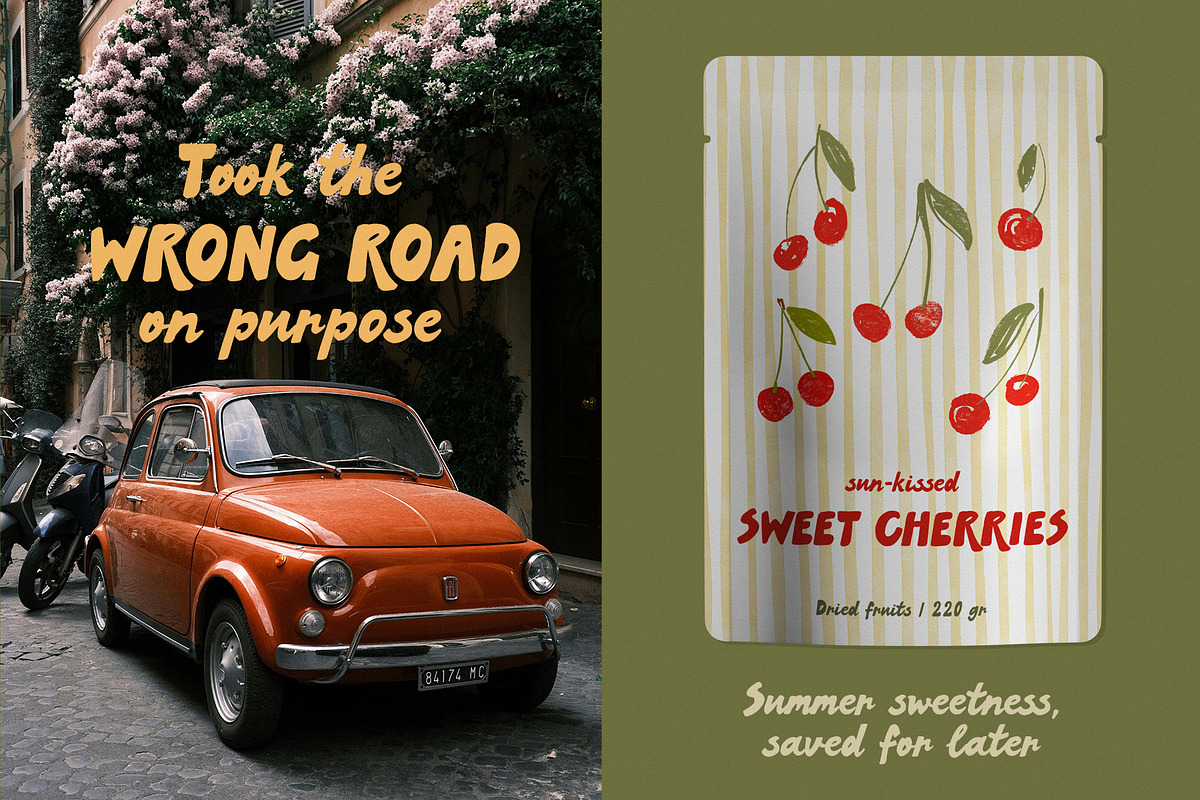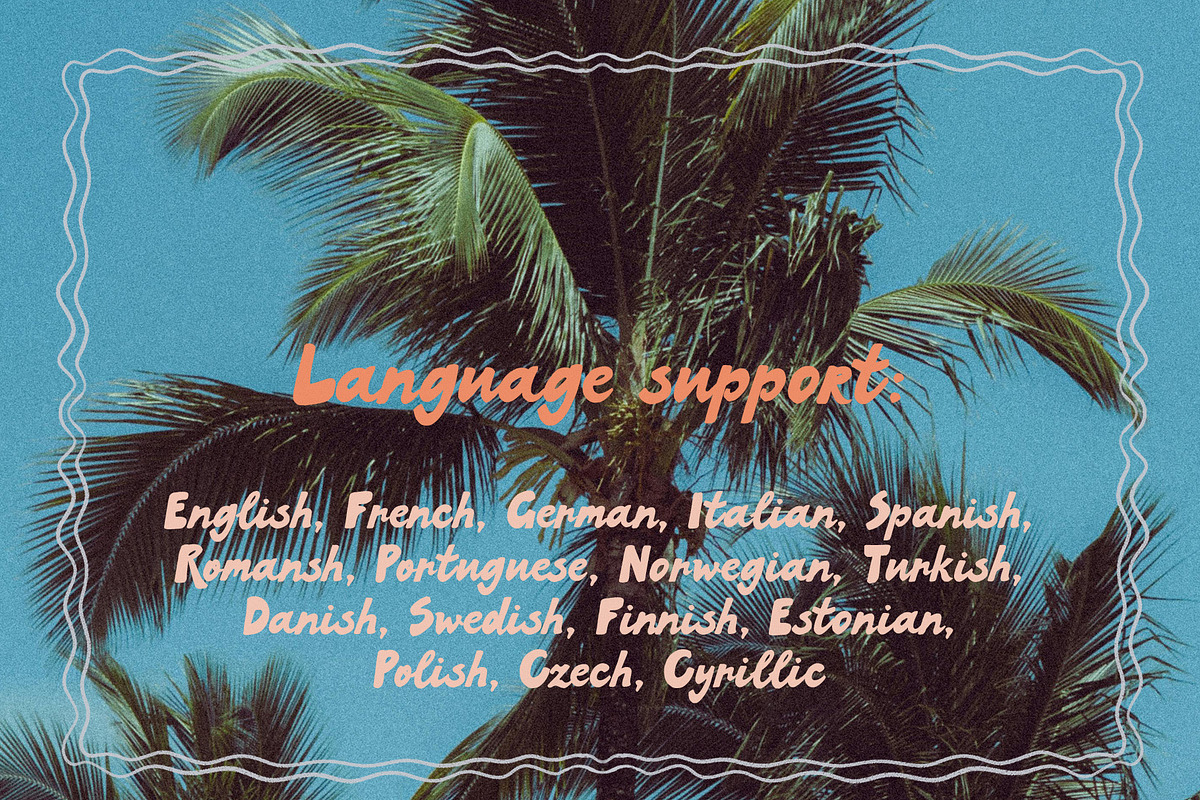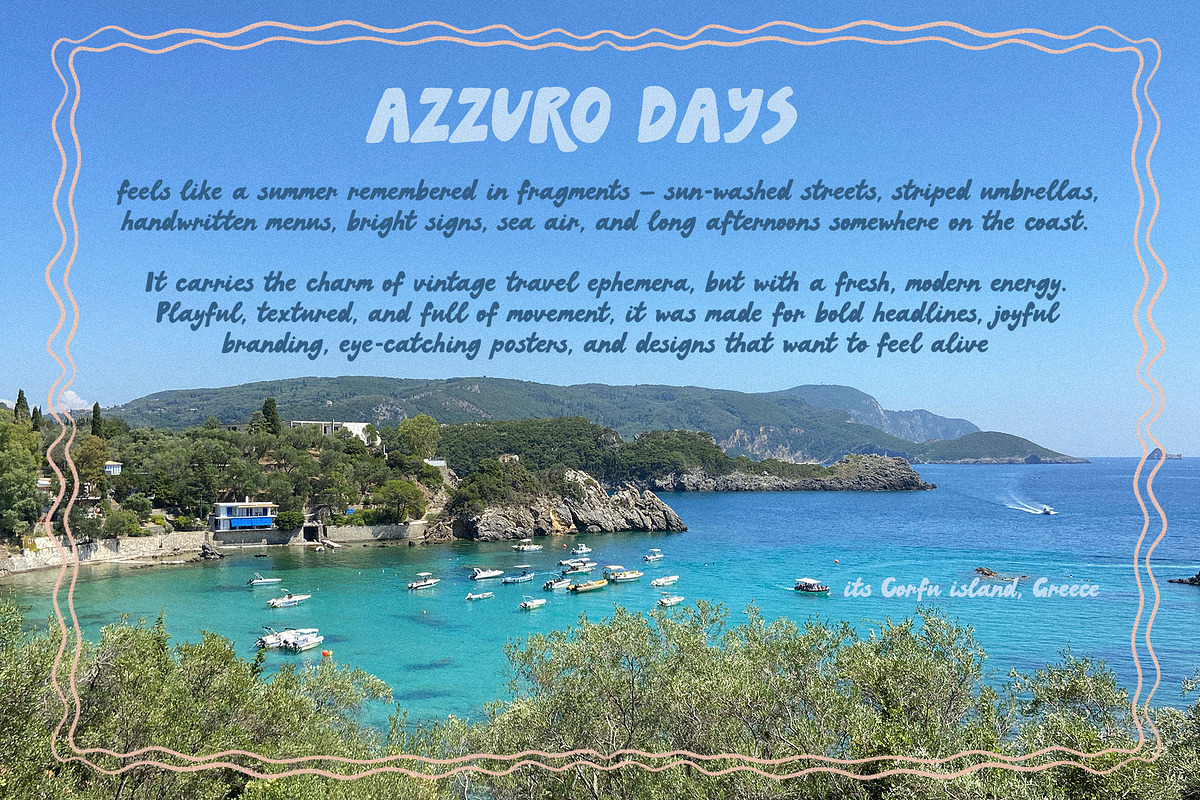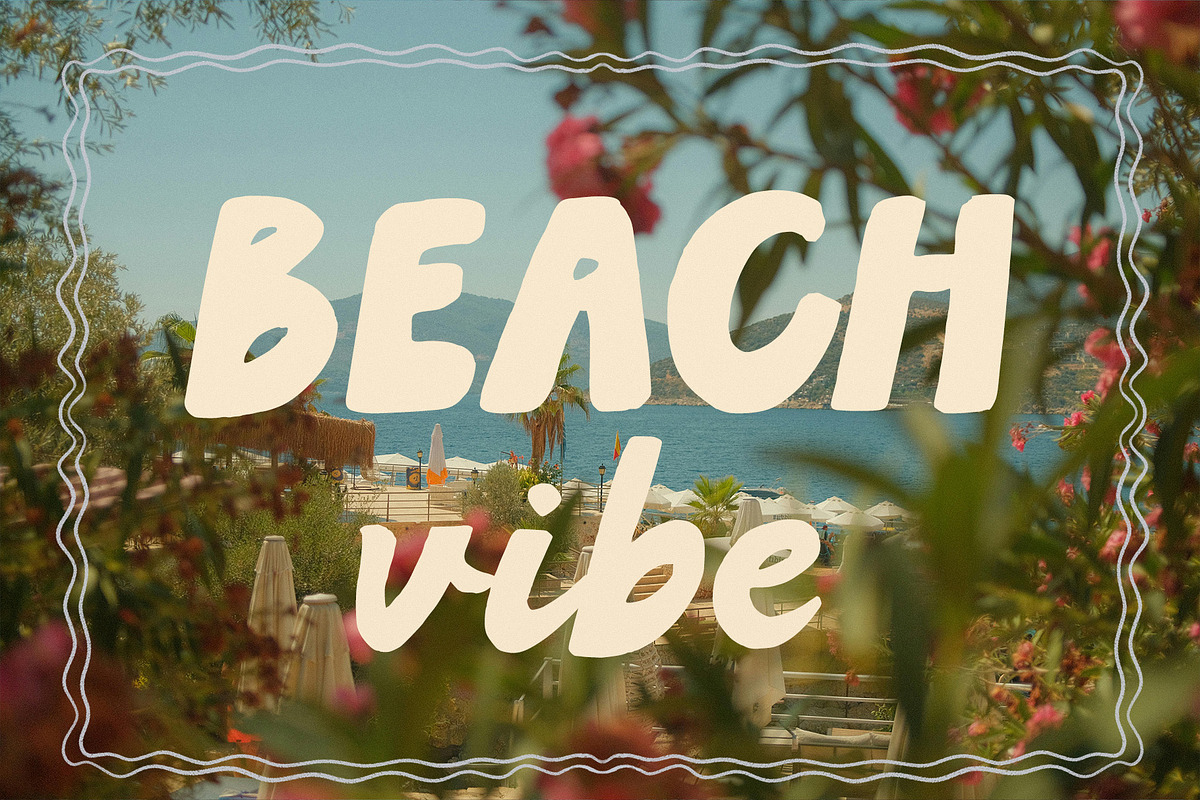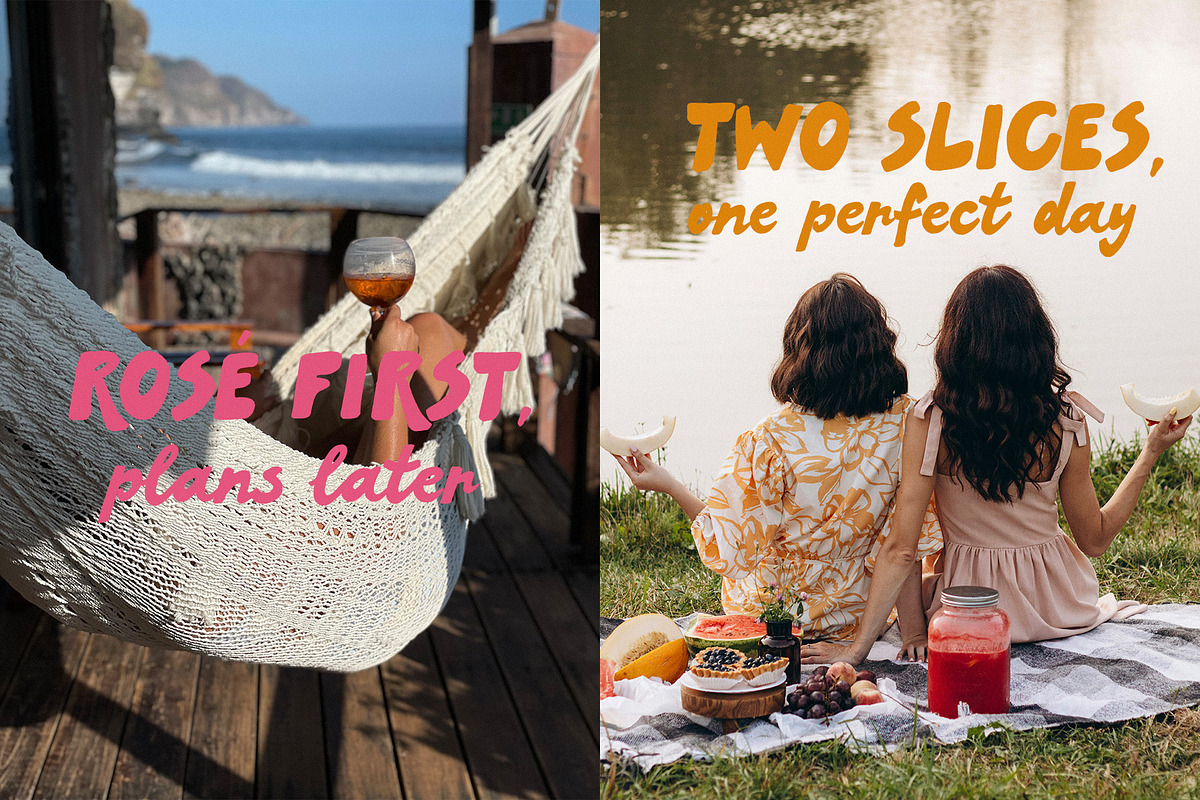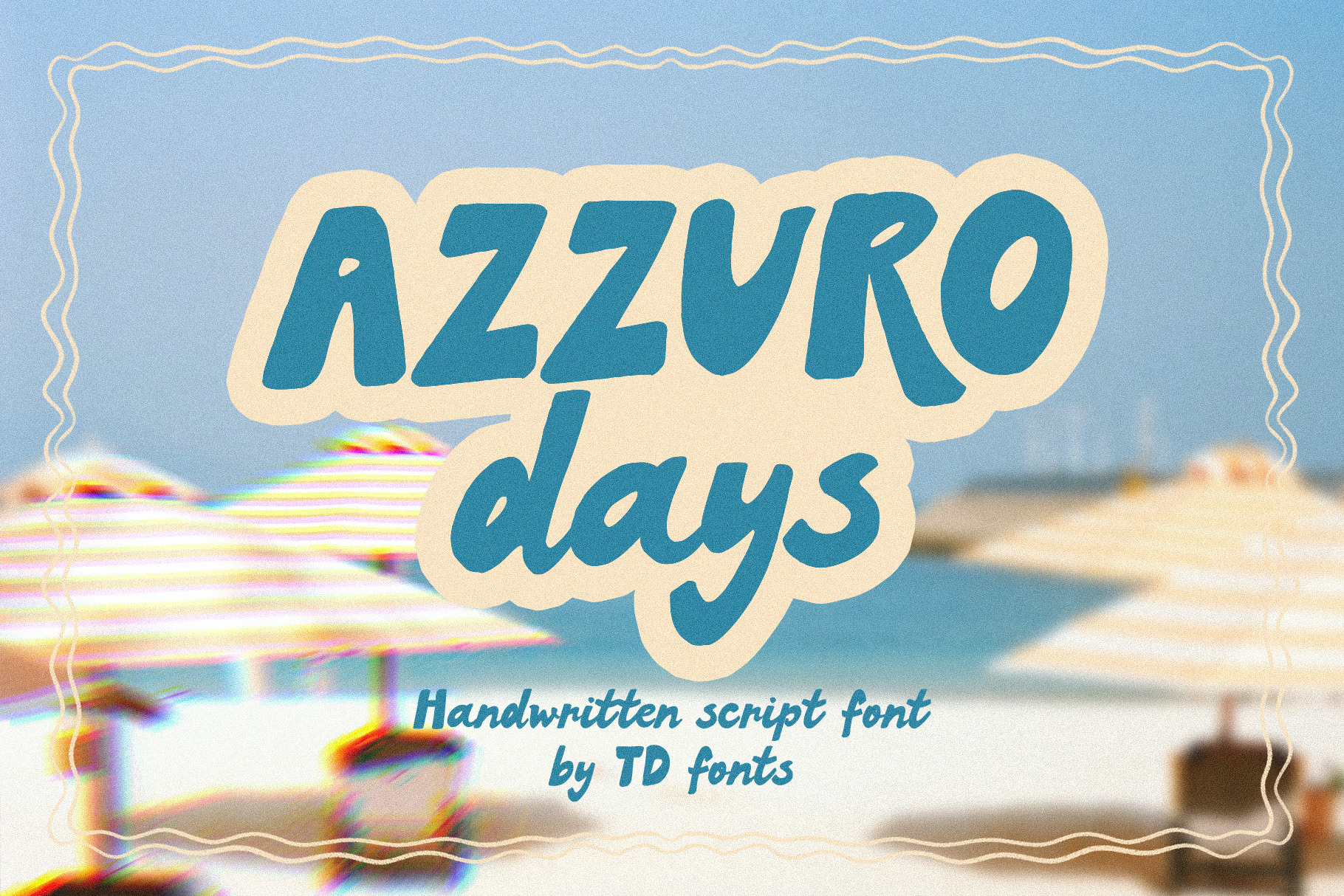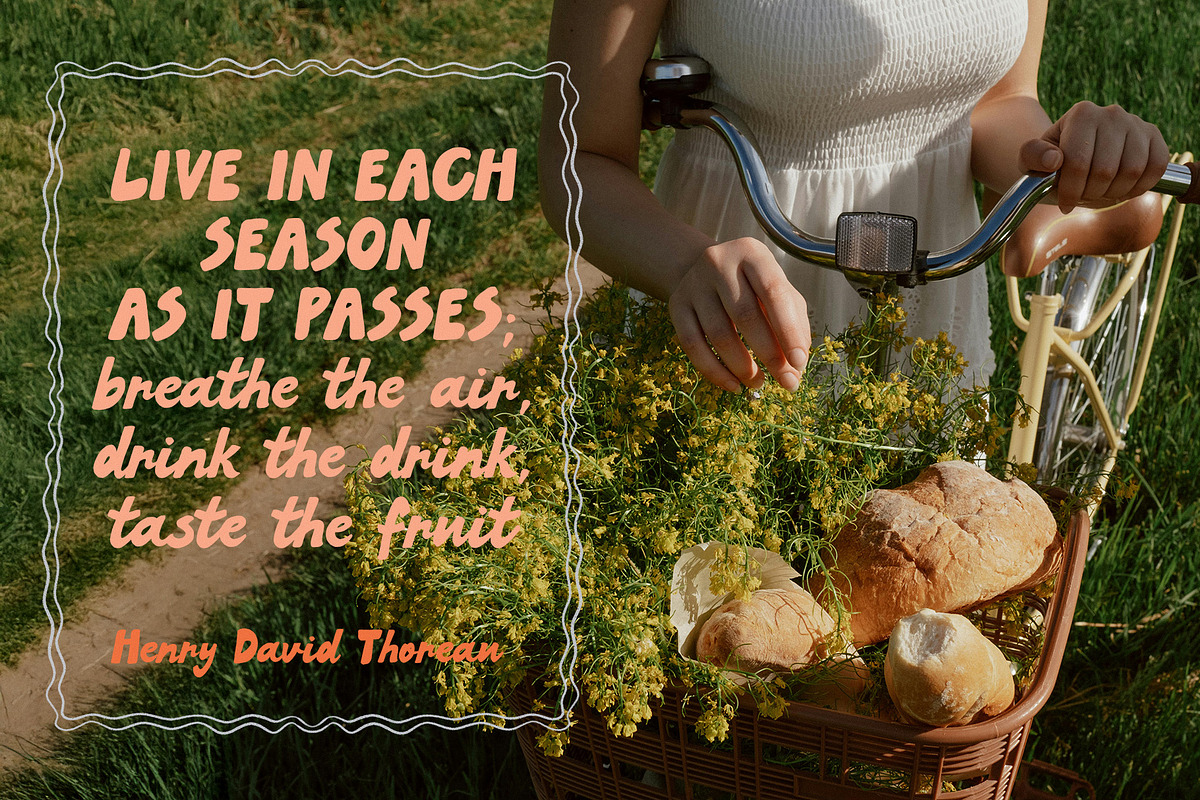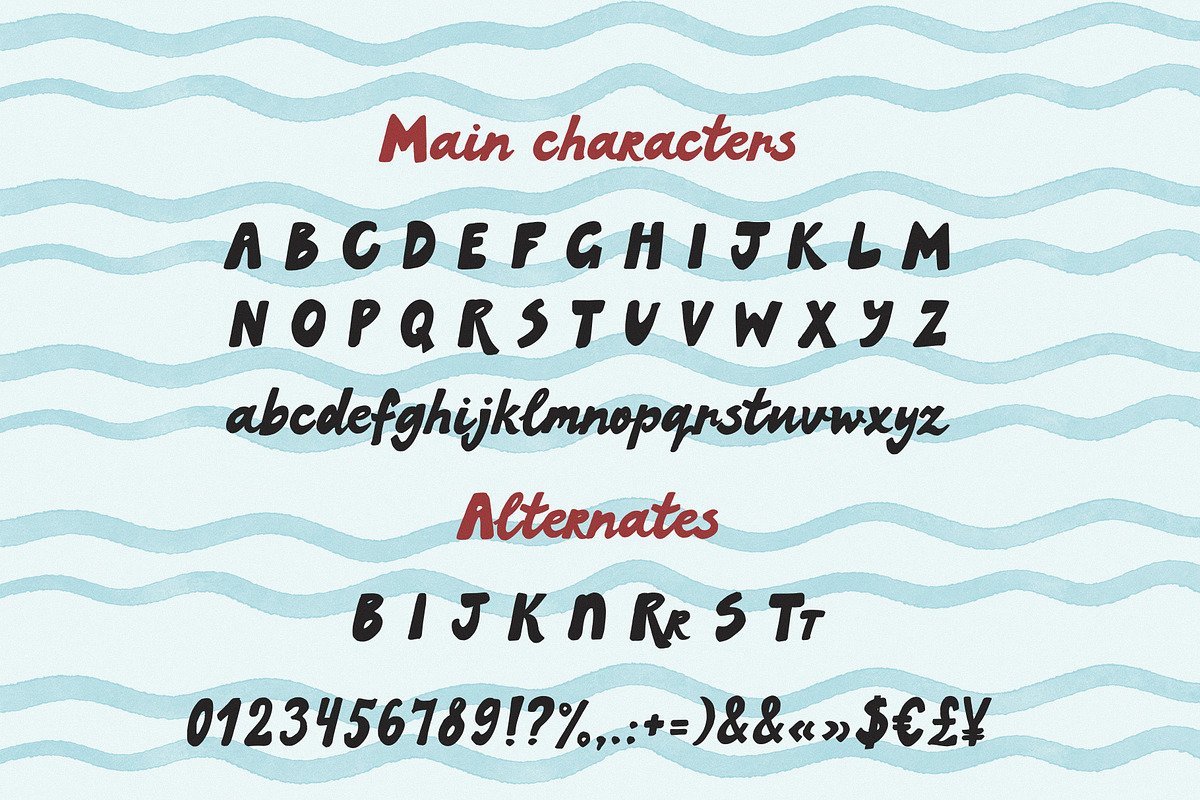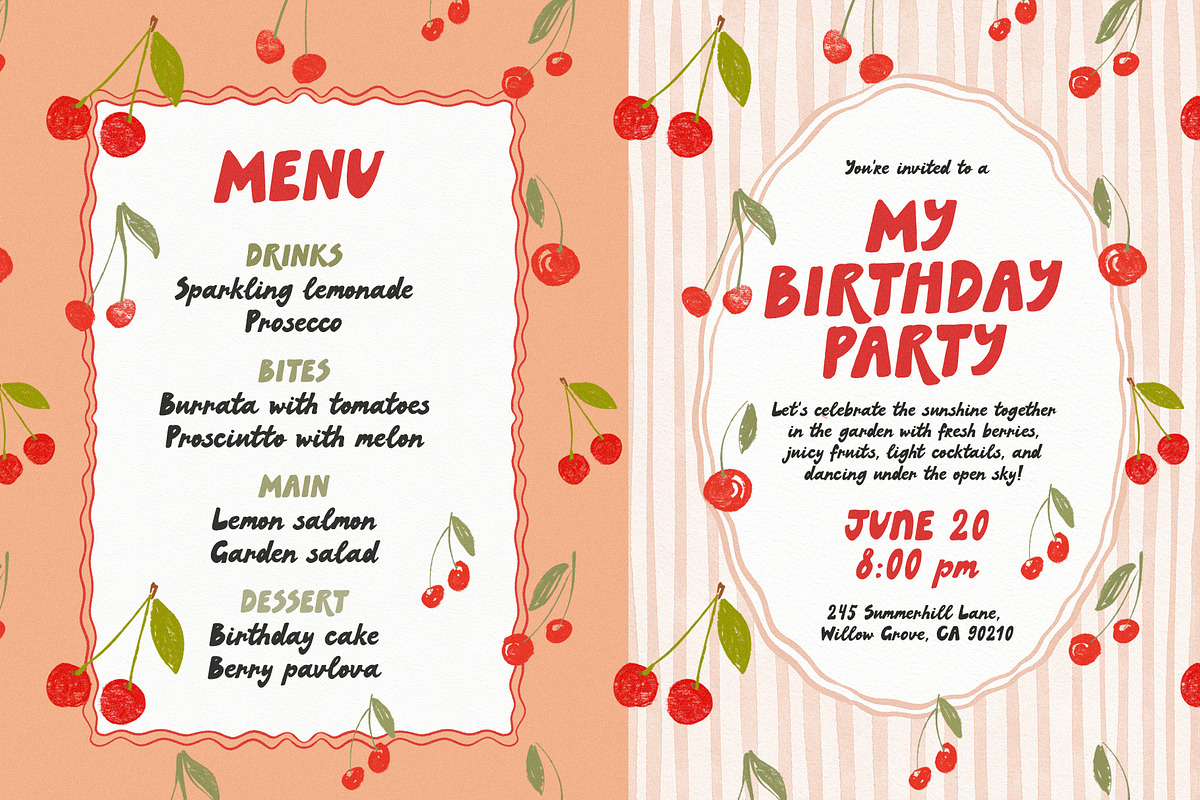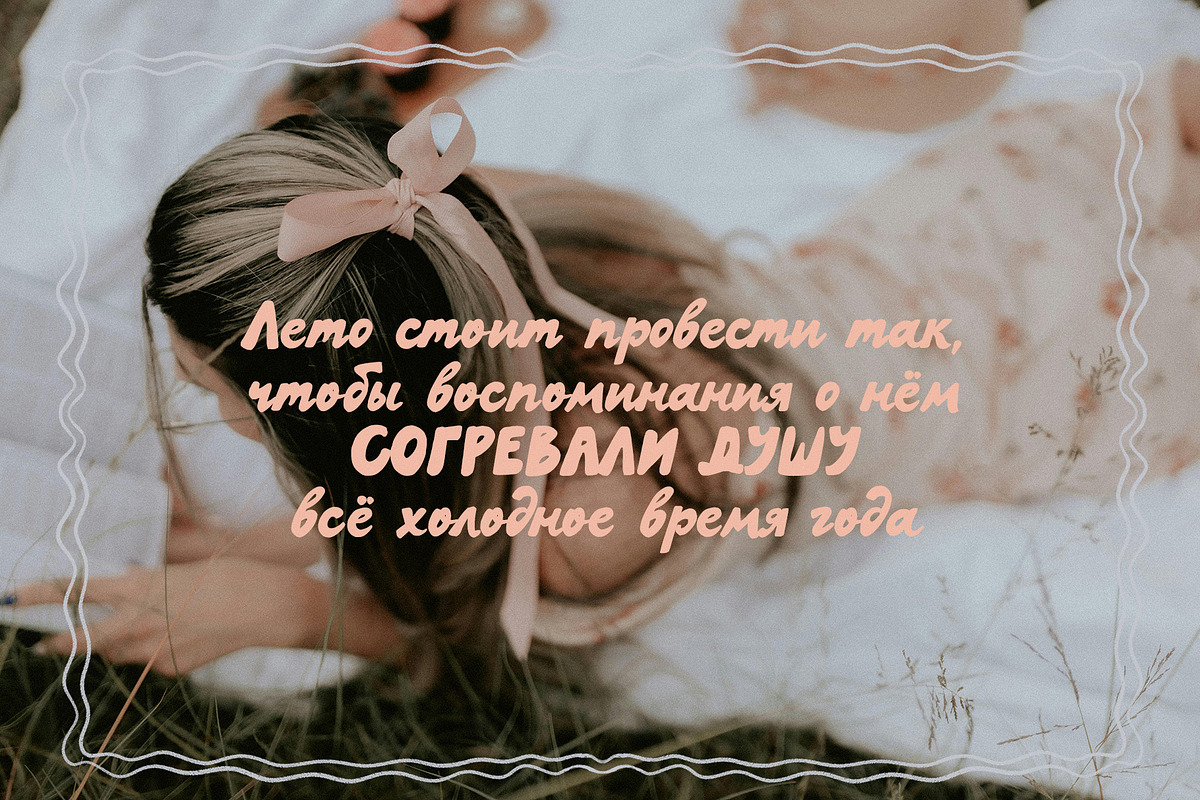
Azzuro Days — Bold Handwritten Script & Sans Serif | Retro Font Duo for Logos, Branding, Design, Social Media & Posters
Azzuro Days is a high-impact font duo that balances the confident weight of a chunky sans-serif with the organic, textured personality of real handwriting. Designed to capture the nostalgia of a summer journey and coastal escapes, this duo is an essential tool for designers looking for a human touch in their digital work.
Visual Aesthetic & Design Features
The Bold Sans (Uppercase): Strong, substantial, and playful. These letters are built for headlines, titles, and logos that require immediate attention.
The Textured Script (Lowercase): Brings a softer energy with natural rhythm, expressive ink texture, and subtle retro charm.
Handcrafted Quality: Written entirely by hand to preserve beautifully imperfect letterforms, making it stand out from clean, sterile digital fonts.
Texture: Visible organic grain that adds depth to print and digital designs.
Ideal for:
Artisan & Lifestyle Branding: Perfect for boutique hotels, Mediterranean-inspired cafes, and craft beverage packaging.
Social Media & Content Creation: Ideal for travel bloggers, joyful Instagram quotes, and vibrant YouTube thumbnails.
Event Design: A great choice for whimsical wedding invitations, menus, and stationery with a nostalgic, vintage vibe.
Merchandise: Bold enough for T-shirts, tote bags, and product labels that need a handmade feel.
Character Set: Includes uppercase (Sans style), lowercase (Script style), numbers, and comprehensive punctuation.
OpenType Features: Includes alternates and ligatures to enhance the custom hand-lettered look.
Extensive Language Support
Azzuro Days supports Western, Central, and South-Eastern European languages.
Cyrillic Support: Full integration for Russian, Ukrainian, Belarusian, Bulgarian, and Serbian.
Latin Support: English, French, German, Italian, Spanish, Portuguese, Danish, Norwegian, Swedish, Finnish, Estonian, Romansh, Turkish, Polish, Czech, and more.